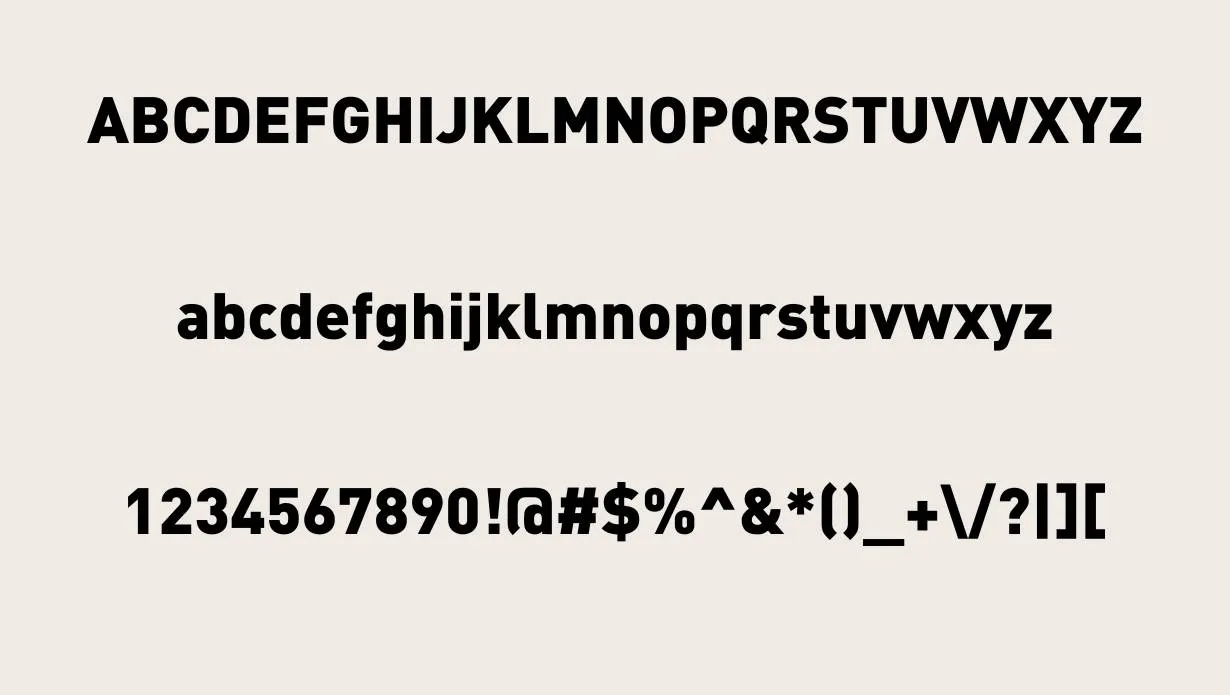
The DIN font is like a straightforward friend – simple and to the point. The letters are clean and sturdy, making your text easy to read. This font is perfect for projects that value clarity and efficiency.
Whether you’re designing a manual or a label, the DIN font adds a no-nonsense approach to your words, ensuring that your message is delivered with straightforward simplicity.
| Name | DIN Font |
| Designer | Albert-Jan Pool |